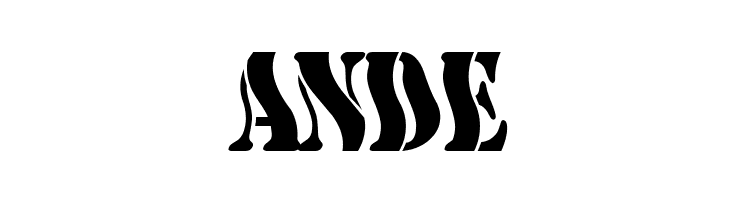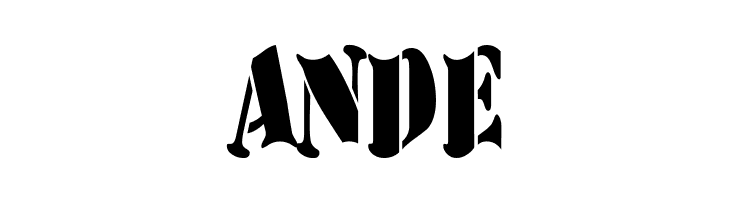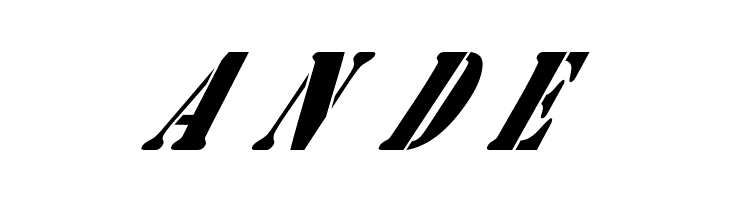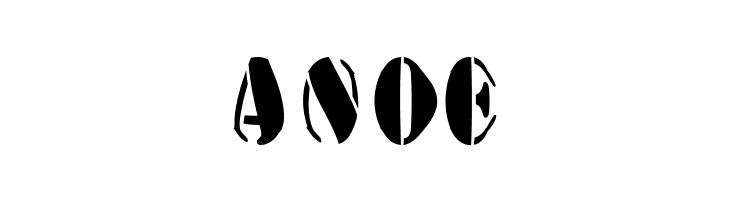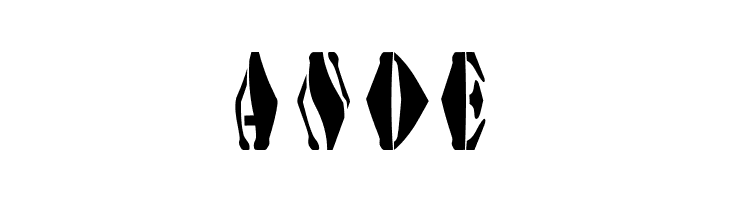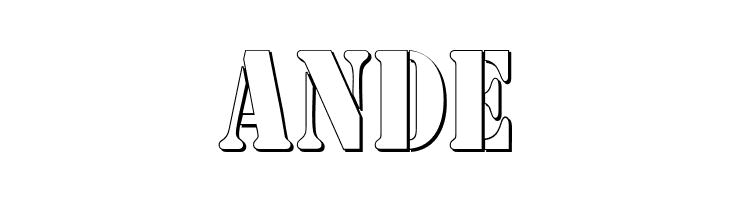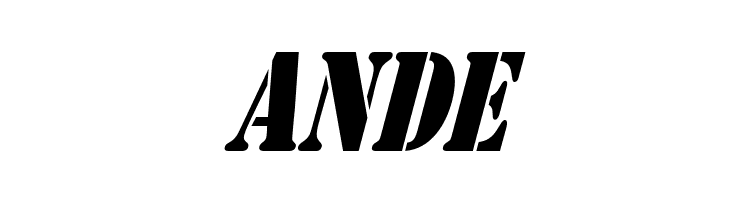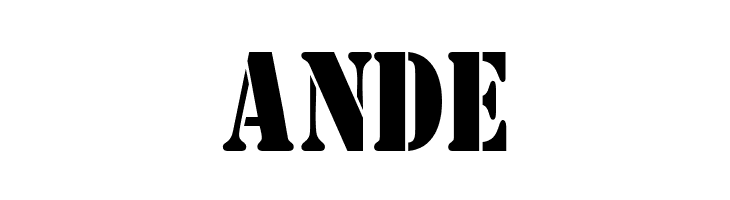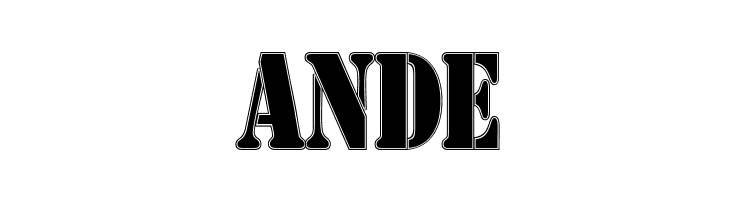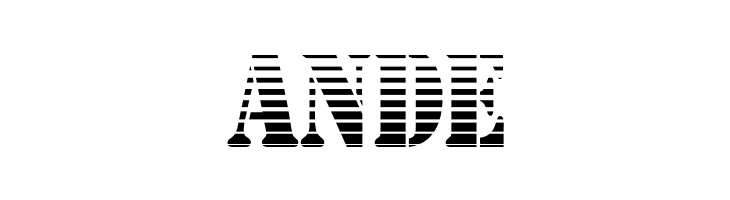
A playful, hand-drawn font with a whimsical and approachable style.
A playful, handwritten font with a whimsical and decorative style.
A playful, casual handwritten font with flowing strokes and a friendly appearance.
A whimsical, hand-drawn font with sketch-like details and artistic flair.
A playful and decorative font with whimsical embellishments.
A whimsical, hand-drawn font with tall, narrow characters and a playful style.
A whimsical script font with flowing, interconnected letters and a playful style.
A whimsical, hand-drawn font with playful embellishments and a casual style.
A modern, handwritten font with elongated, fluid characters and artistic flair.
An elegant script font with flowing, cursive style and high contrast strokes.
A dynamic and expressive handwritten font with fluid strokes and artistic flair.
A dynamic script font with fluid, cursive strokes and bold numerals.
A bold, geometric font with sharp angles and a modern, edgy style.
A bold, striped decorative font with a modern and dynamic style.
A dynamic, striped font with bold strokes and a modern, energetic style.
A bold, stencil-style font with strong, thick strokes and an industrial feel.
A bold, stencil-style font with geometric shapes and distinct cut-out sections.
A bold, slanted stencil font with high contrast and a strong, authoritative presence.
A bold, stencil-style font with a military and industrial aesthetic.
A bold, stencil-style font with a rugged, industrial aesthetic.
A bold, stencil-style font with a rugged, industrial look.
A bold, stencil-style font with a rugged, utilitarian look.
A bold, stencil-style font with rugged cutouts for a utilitarian look.
A bold, stencil-style font with sharp, angular cuts and a military aesthetic.
A bold, stencil-style font with a military-inspired design and angular edges.
A bold, stencil-style font with horizontal stripes for a rugged, industrial look.
A bold, stencil-style font with a vintage military aesthetic.